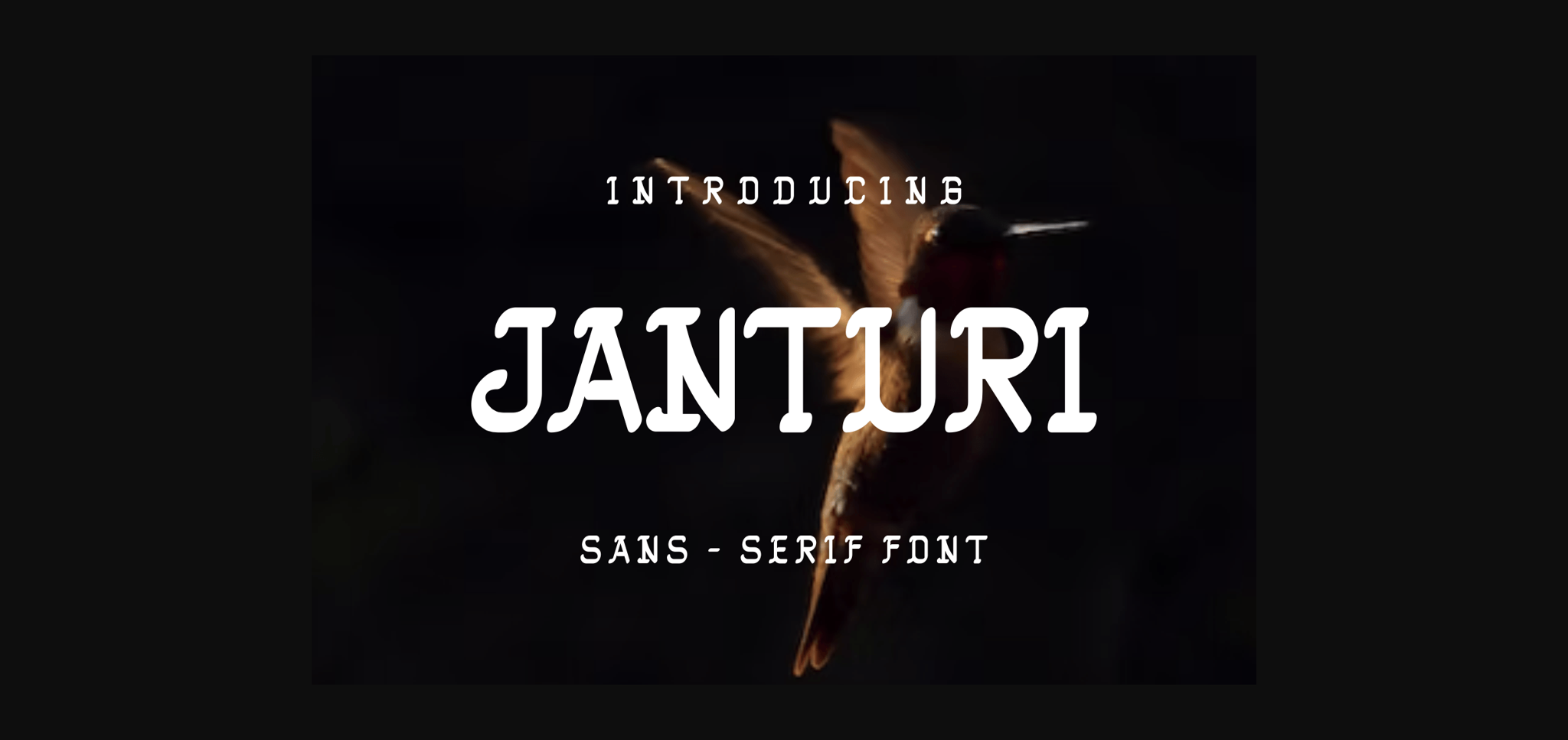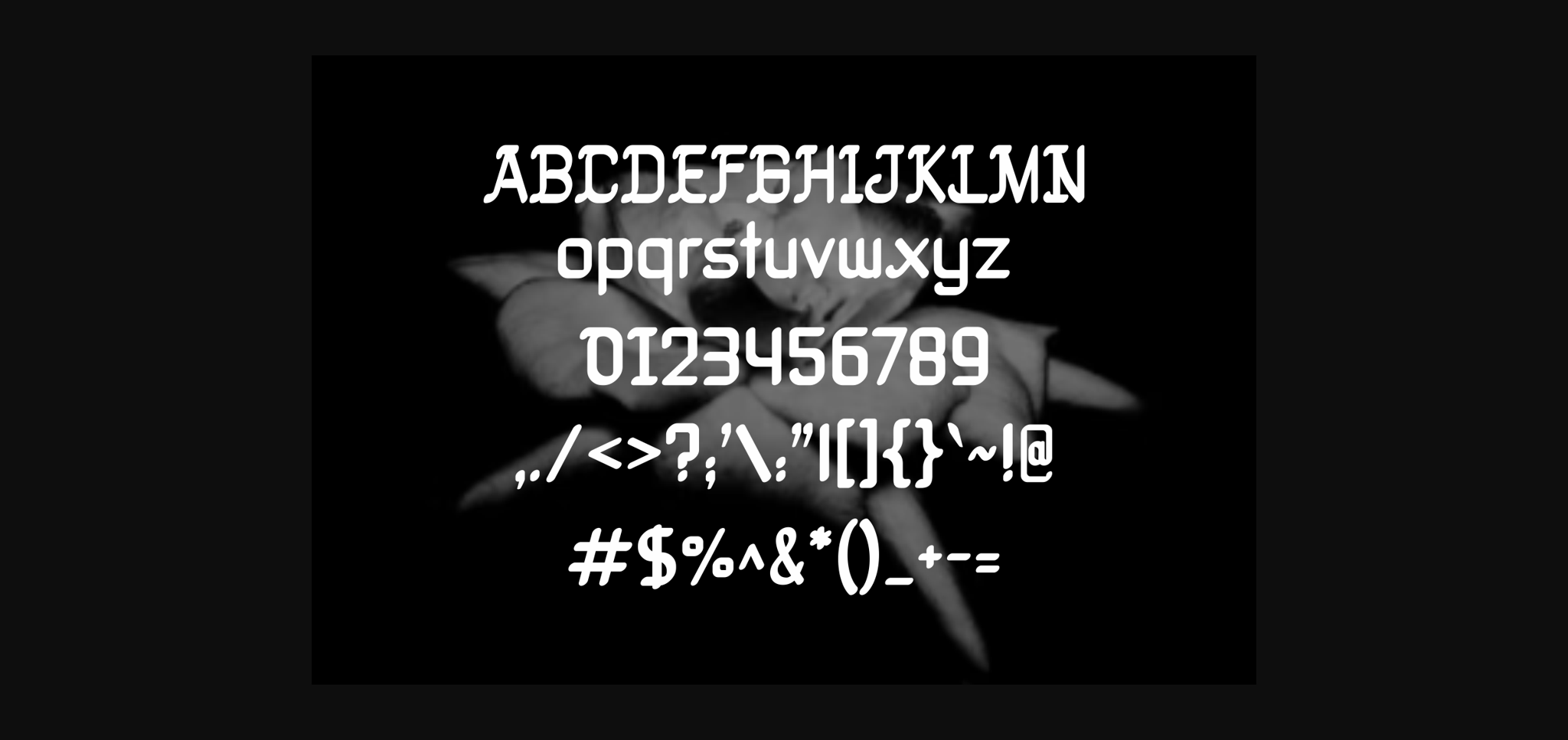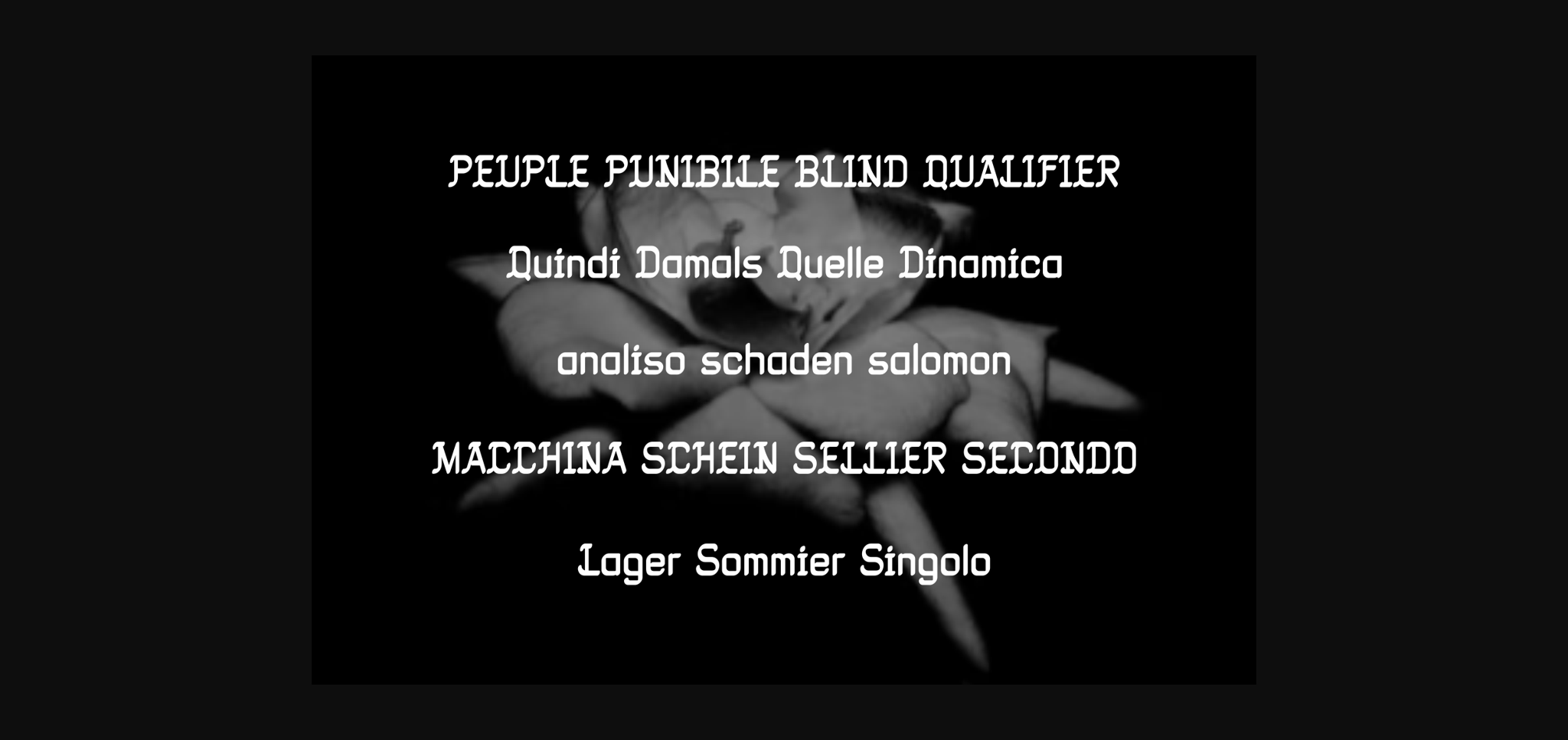
About Janturi Font
Janturi is a fun and unique sans serif font. No matter the topic, this font will be an incredible asset to your fonts’ library, as it has the potential to elevate any creation.